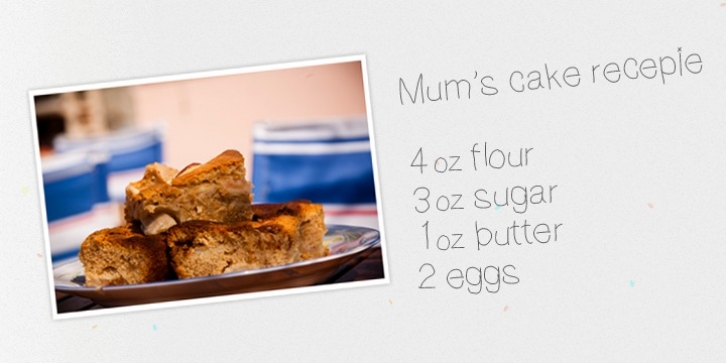
A hand drawn font thats perfect for kids cards, scrap-booking and photo annotation etc.. Full set of alternative characters included. Comes with CSS and HTML code plus all web compatible formats.